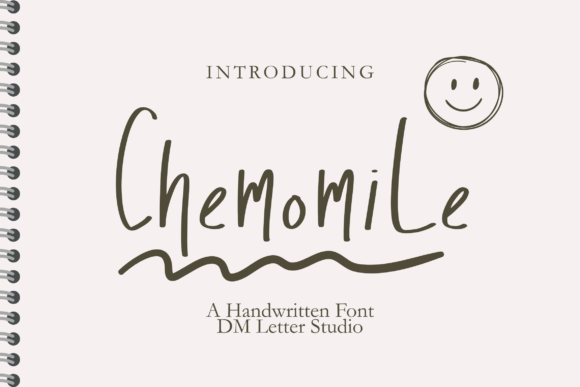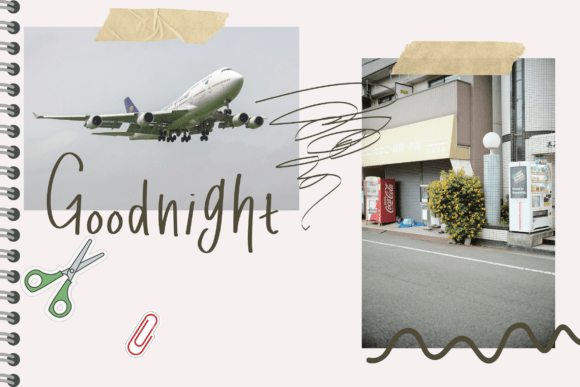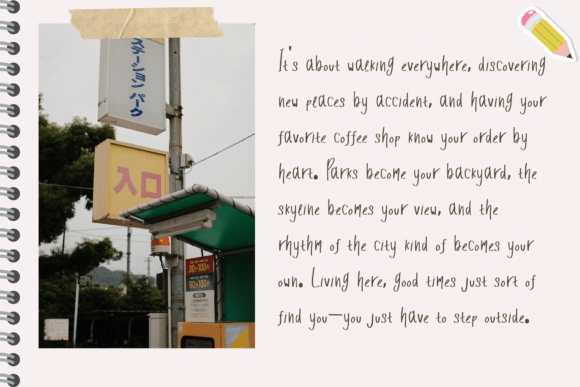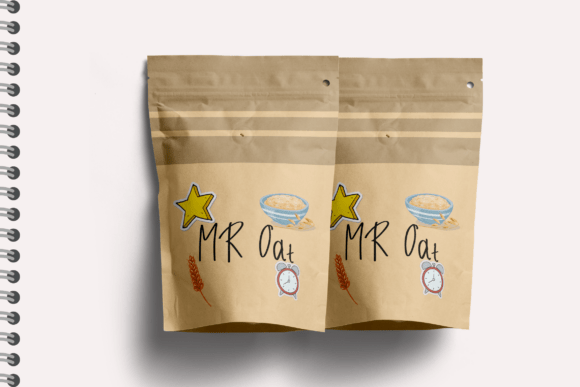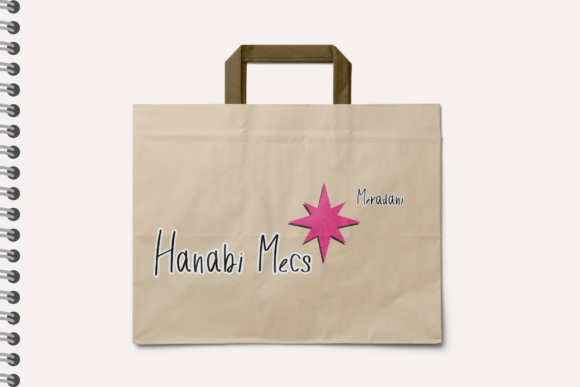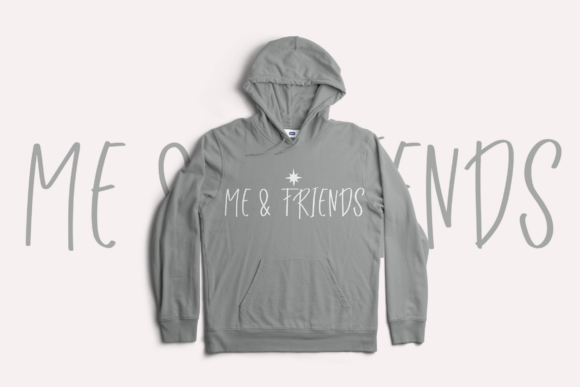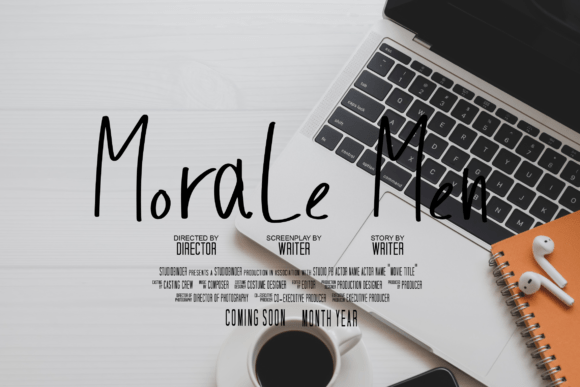
Discover the Soothing Charm of the Chemomile Font
Have you ever stumbled upon a handwritten note or a beautifully crafted letter that immediately captured your heart? For many of us, there’s something undeniably special about the imperfections and uniqueness of handwritten text. This is exactly the inspiration behind the Chemomile Font, a delicate and charming handwritten font that echoes the tranquil elegance of chamomile blossoms.
Whether you’re a seasoned designer or just starting to build your brand, the Chemomile Font offers a valuable tool for infusing your designs with a touch of warmth and authenticity. With its soft strokes and delicate curves, this font is perfect for creating invitations, quotes, logos, and packaging that exude a sense of invitation and individuality.
Key Features of Chamomile Font
- Unique Characteristics: Features a soothing, hand-drawn design with a natural, floral feel, reminiscent of the chamomile flower.
Chemomile Font Review
I recently had the chance to work with the Chemomile font, and I must say it’s a unique addition to any design project. ✨ One of the things that immediately caught my attention was its organic, hand-drawn feel, which adds a touch of warmth and personality to any text.
Here are some of the things that work well in Chemomile:
- ✨ Its versatility – Chemomile can be used for a wide range of projects, from branding and advertising to digital products and publications.
- ✨ The various weights and styles available – this allows designers to create a consistent look and feel throughout a project.
- ✨ The font’s legibility – Chemomile is clear and easy to read, even at smaller font sizes.
- ⚠️ The font may not be suitable for projects that require a more modern or minimalist aesthetic.
- ⚠️ Chemomile may not be the best choice for text-heavy projects, as its organic feel can make it difficult to read at very large font sizes.
- ⚠️ Some users may find the font’s hand-drawn look to be distracting or unprofessional.
Overall, I think Chemomile is a great addition to any designer’s toolkit, but it’s essential to use it judiciously and consider the project’s specific needs and goals.
For a calming effect, pair the Chamomile Font with pastel colors and soft textures. Use it in wedding invitations, baby shower invitations, or other events where a soothing atmosphere is desired. You can also use it in digital products like e-books, podcasts, or meditation apps to create a relaxing tone.